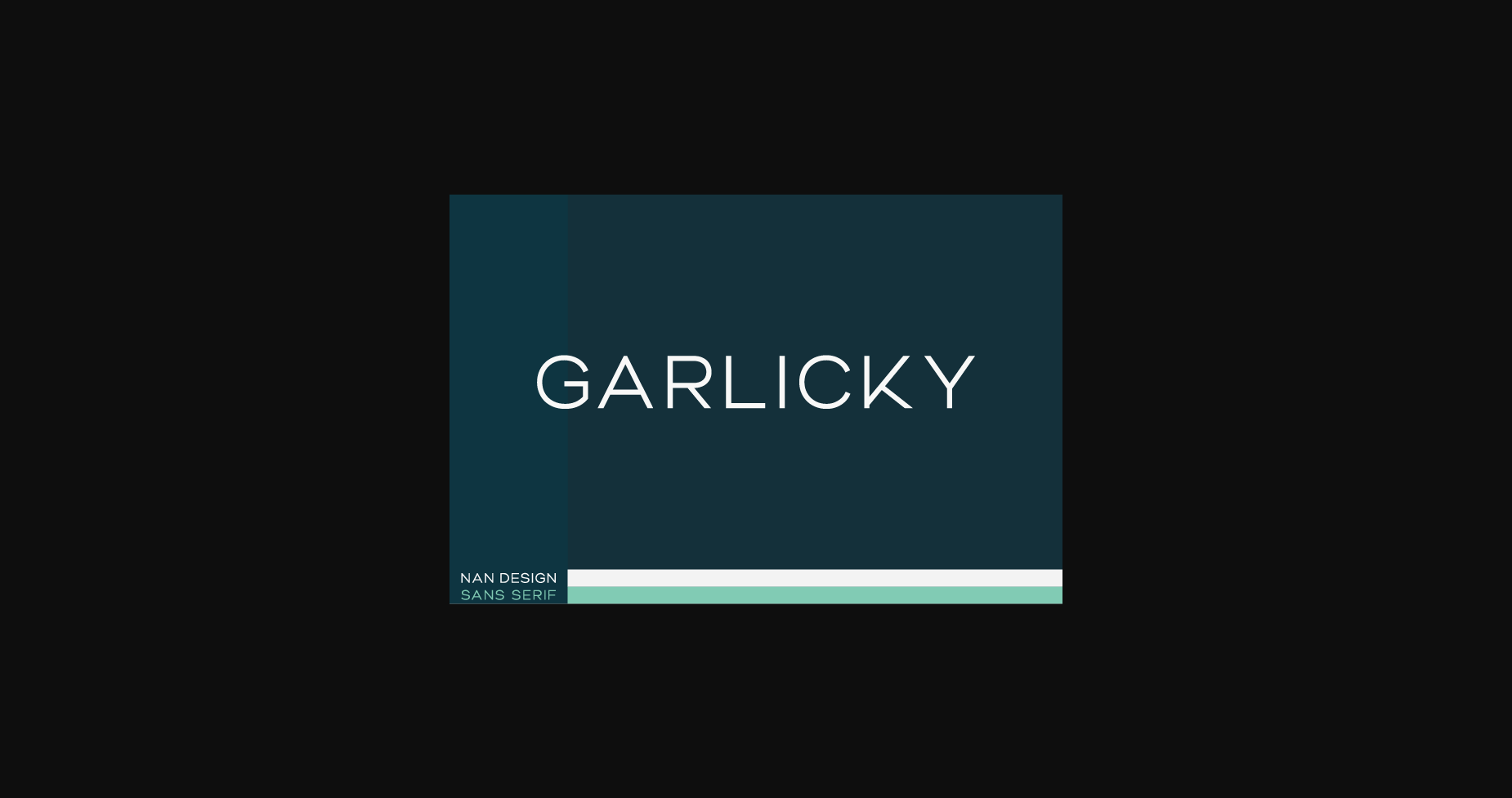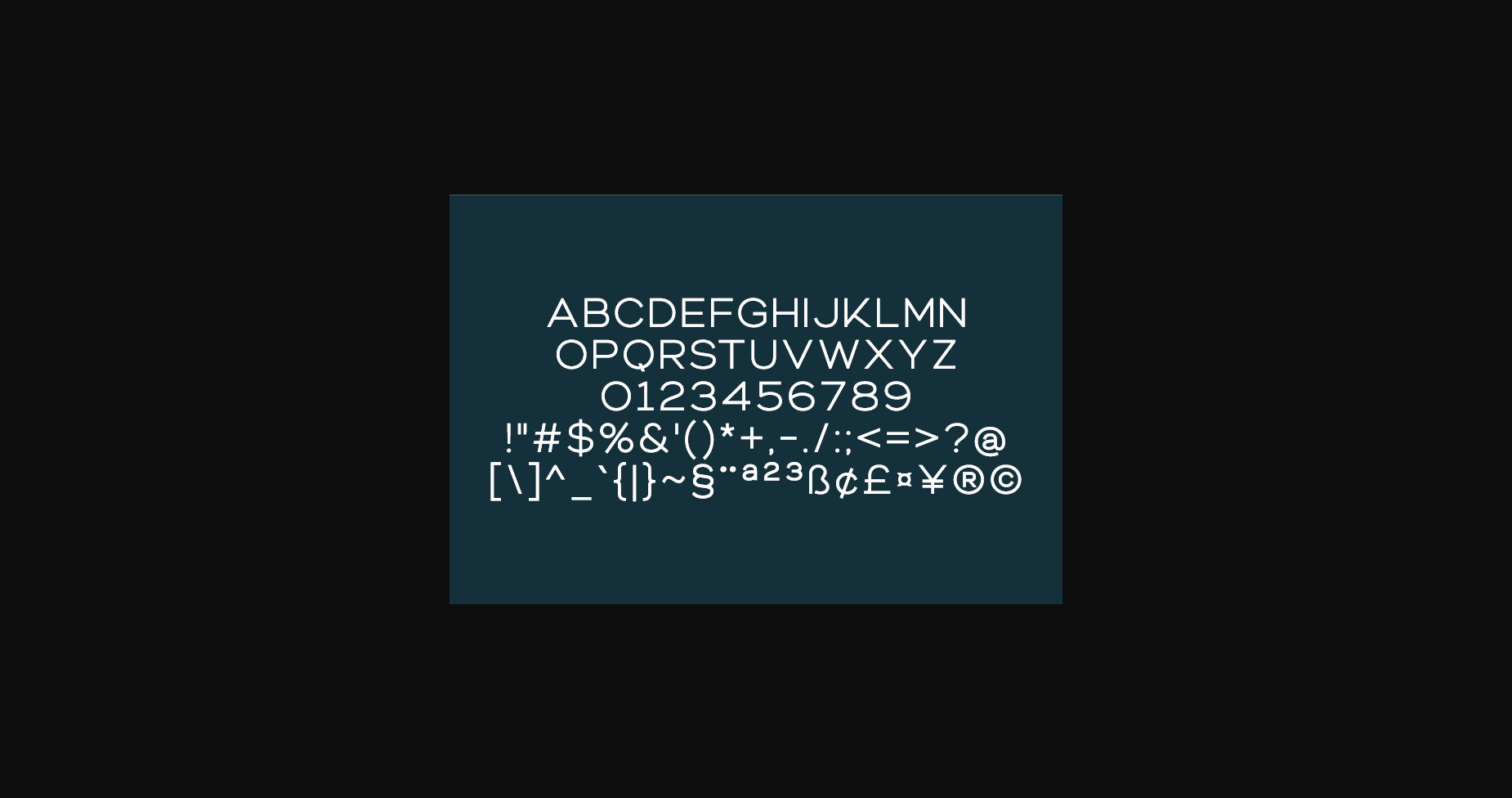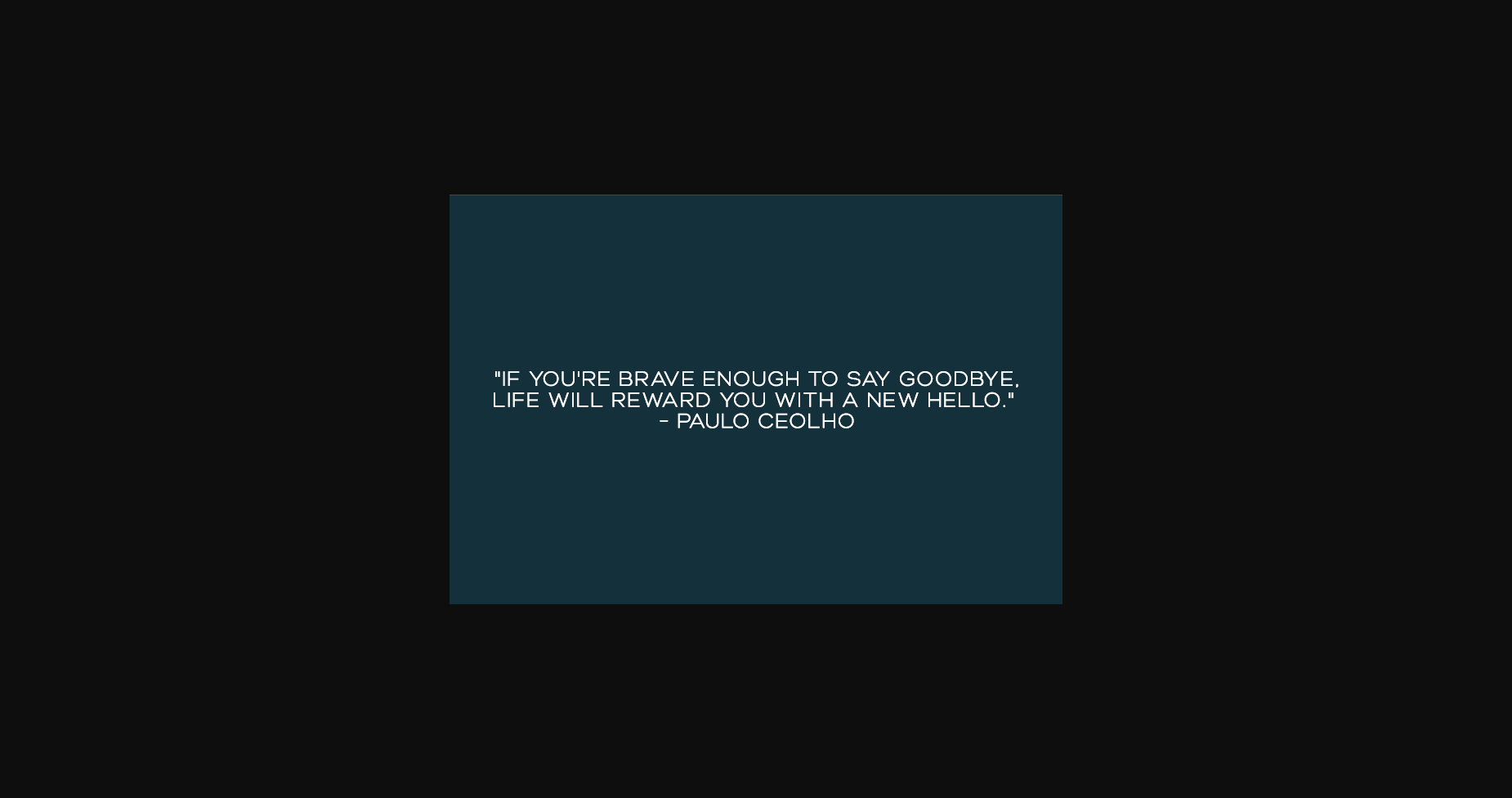
HomeSans Serif FontsGarlicky Font Sans Serif Fonts Garlicky Font FacebookXPinterestWhatsApp 1 of 5 ... Garlicky Font Poster 2... Garlicky Font Poster 3... Garlicky Font Poster 4... Garlicky Font Poster 5... About Garlicky Font Garlicky is a stunning sans serif to complement every project you’re working on. Use it to create beautiful headings, gorgeous invitations, stunning logos, and so much more! DOWNLOAD NOW People also explored Rachelia Font Breathaking Script Font Shrunken Head BB Plenty Bounty Font Modernline Font Theresha Font Erisko Font Havoks Font Authority Font 368 0 TagsGarlicky Font Previous articleCavalier FontNext articleStone Font LEAVE A REPLY Cancel reply Comment: Please enter your comment! Name:* Please enter your name here Email:* You have entered an incorrect email address! Please enter your email address here Website: Save my name, email, and website in this browser for the next time I comment. Personal Use Free Waverly Date Personal Use Free Read more about this font Gratisan Personal Use Free Read more about this font Drip October Font Personal Use Free Read more about this font Panaroe Personal Use Free Read more about this font BLOG 5 Fonts That Will Dominate Design Trends in 2026 5 Fonts for 2026 That Will Dominate Design Trends Typography plays a critical role in visual communication, and as we look ahead to 2026, it’s... Free Fonts Risk: Why Free Fonts Can Be Dangerous for Designers The 10 Best Handwriting Fonts to Add Personality to Your Designs Exploring Font Trends